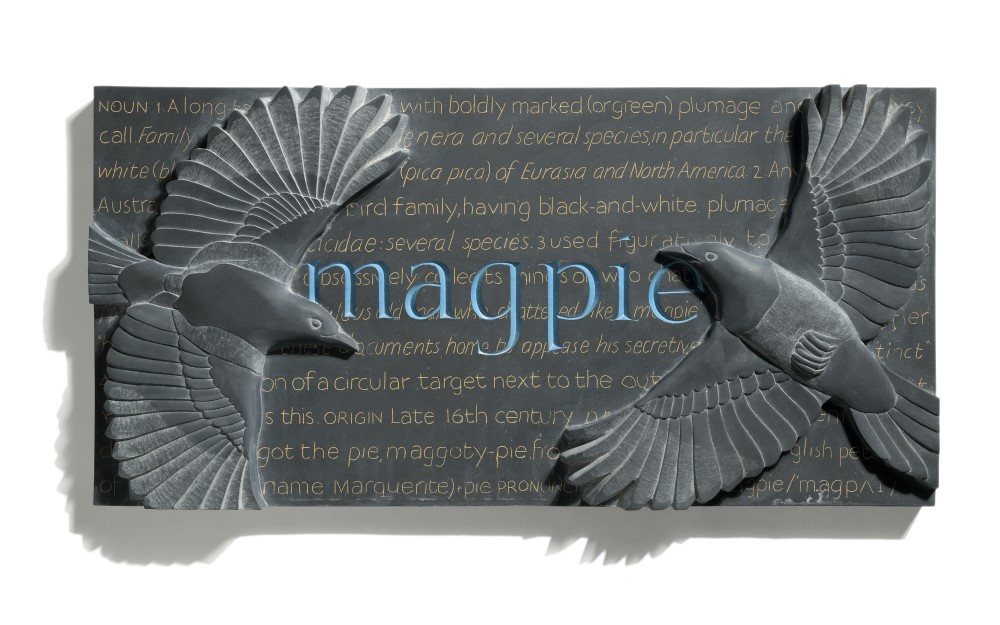
Magpie by Louise Tiplady
This carving in Welsh slate by Louise Tiplady, celebrates the word ‘Magpie’, and was created as part of our exhibition ‘The Lost Words - Forget-me-not.’ For this exhibition artists have created a permanent record of the natural words removed from the Oxford Junior Dictionary. Size: 30 x 60cm
NOUN: MAGPIE
A long-tailed crow with boldly marked (or green) plumage and a noisy call
Family Corvidae: five genera and several species, in particular the black-and-white (black-billed) magpie (Pica pica) of Eurasia and North America
ORIGIN: Late 16th century: probably shortening of dialect maggot the pie, maggoty-pie, from Magot, a middle English pet form of the given name Marguerite, and pie.
I am interested in combining letterforms with realistic bird carvings. Not only is the MAGPIE wonderful to carve, but the legends and superstitions connected with it provided plenty of inspiration for this piece.
I wanted to avoid carving a single bird as, even though the word magpie is being dropped from the dictionary, many people continue to relate seeing just one with bad luck. The rhyme ‘One for sorrow, two for joy’ is so commonly known that showing two magpies will I hope suggest joy to many people. When we salute a single magpie with the respectful greeting ‘Good morning, Mr Magpie, how’s your lady wife?’ it’s thought to ward off bad luck by inferring that he’s one of a pair. And magpies mate for life.
I chose a simple round hand letterform for the word as it reminds me of the books of my childhood.
I decided to include the complete definition of magpie from the dictionary to show that it is not just the reference to a bird species that has been erased, but also the figurative uses of the word to describe someone who collects shiny bright things or chatters idly. As the French proverb has it, bavard comme un pie: talkative as a magpie.